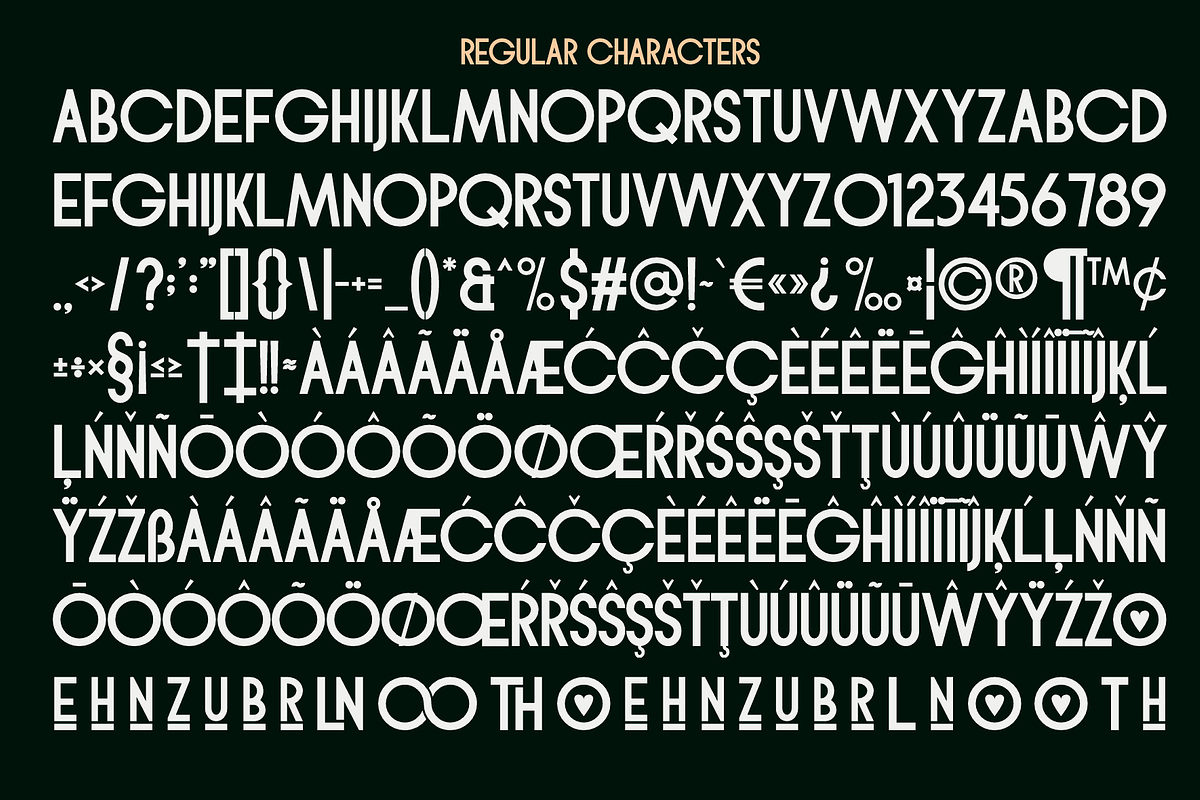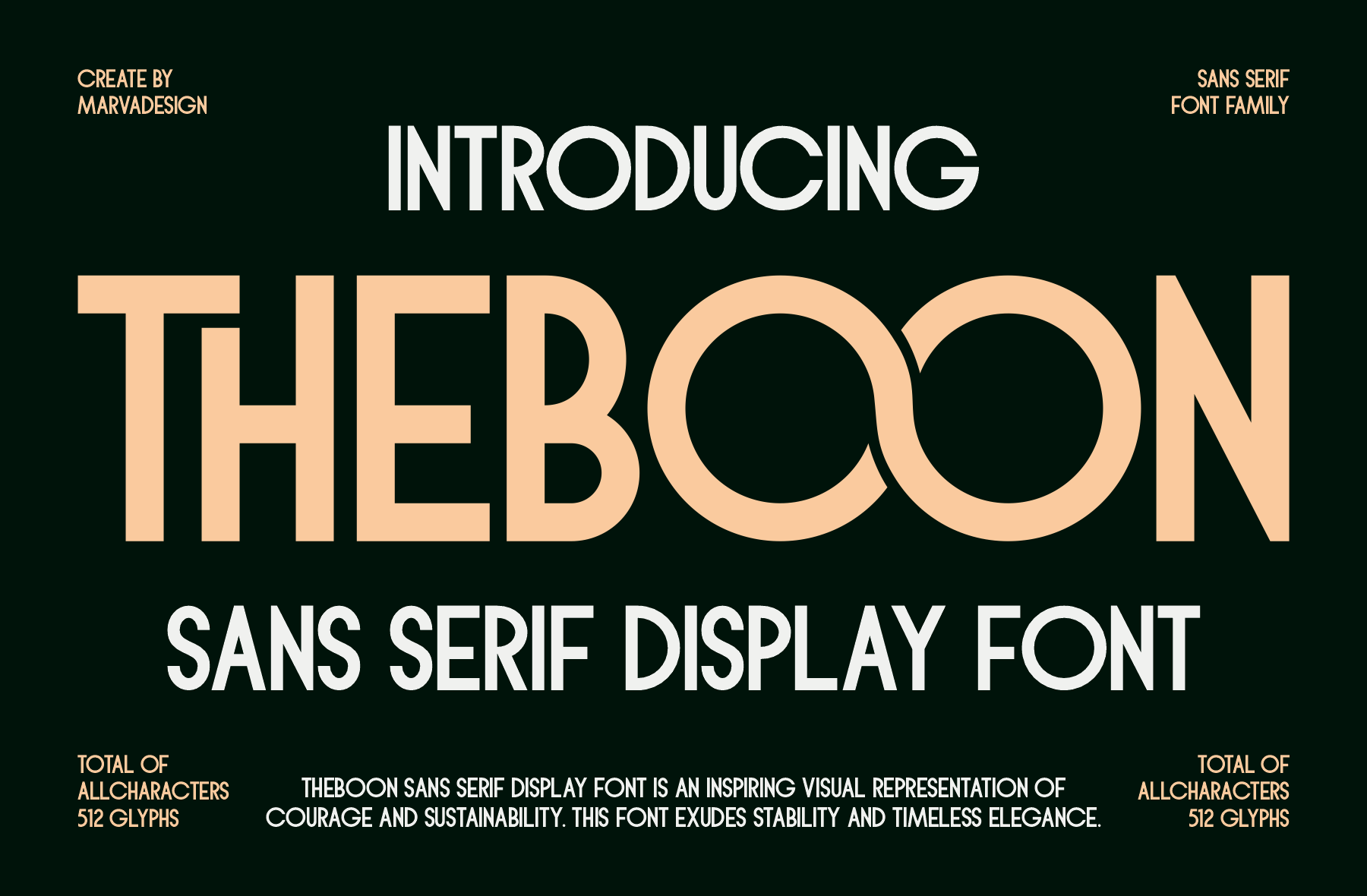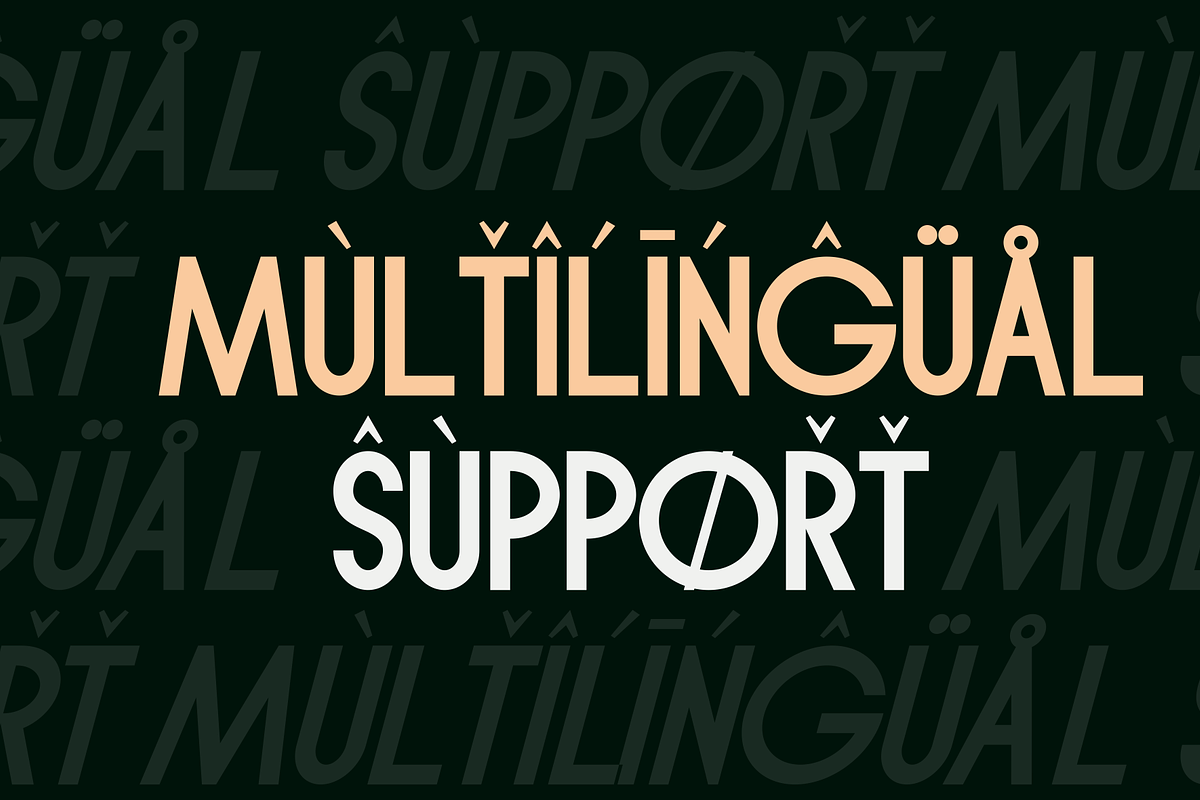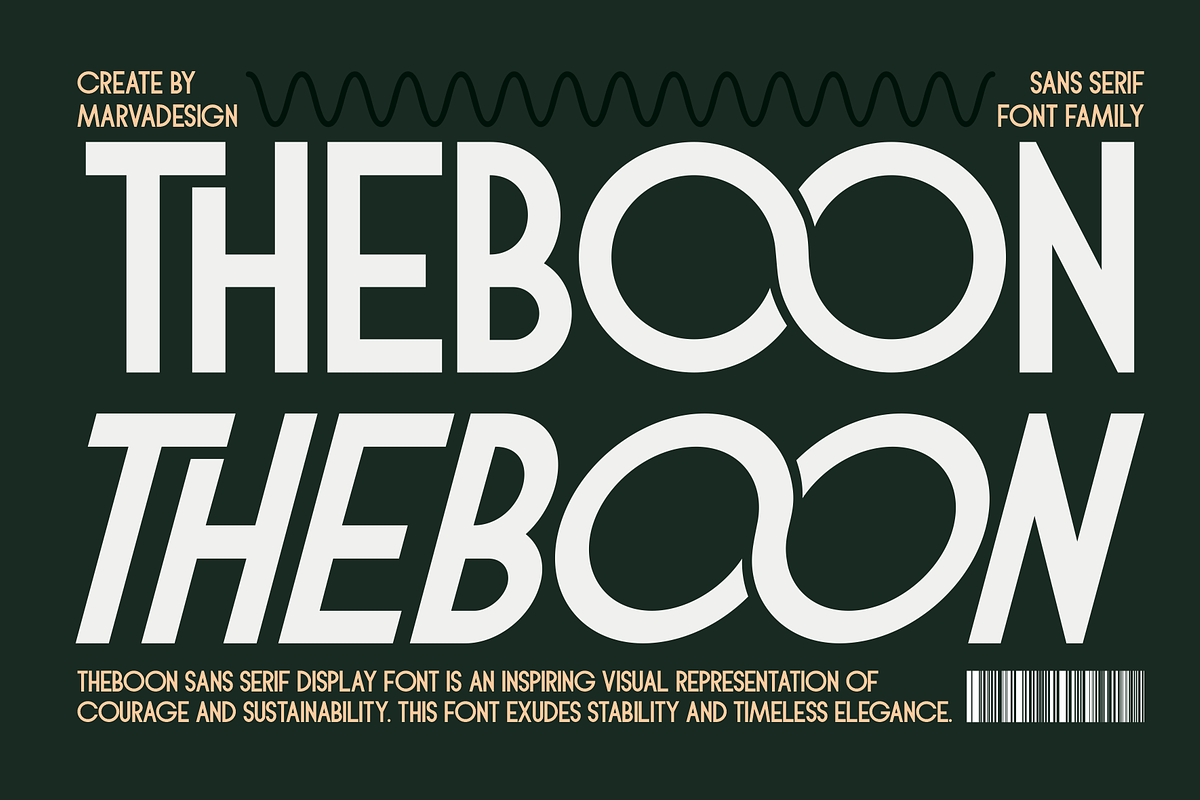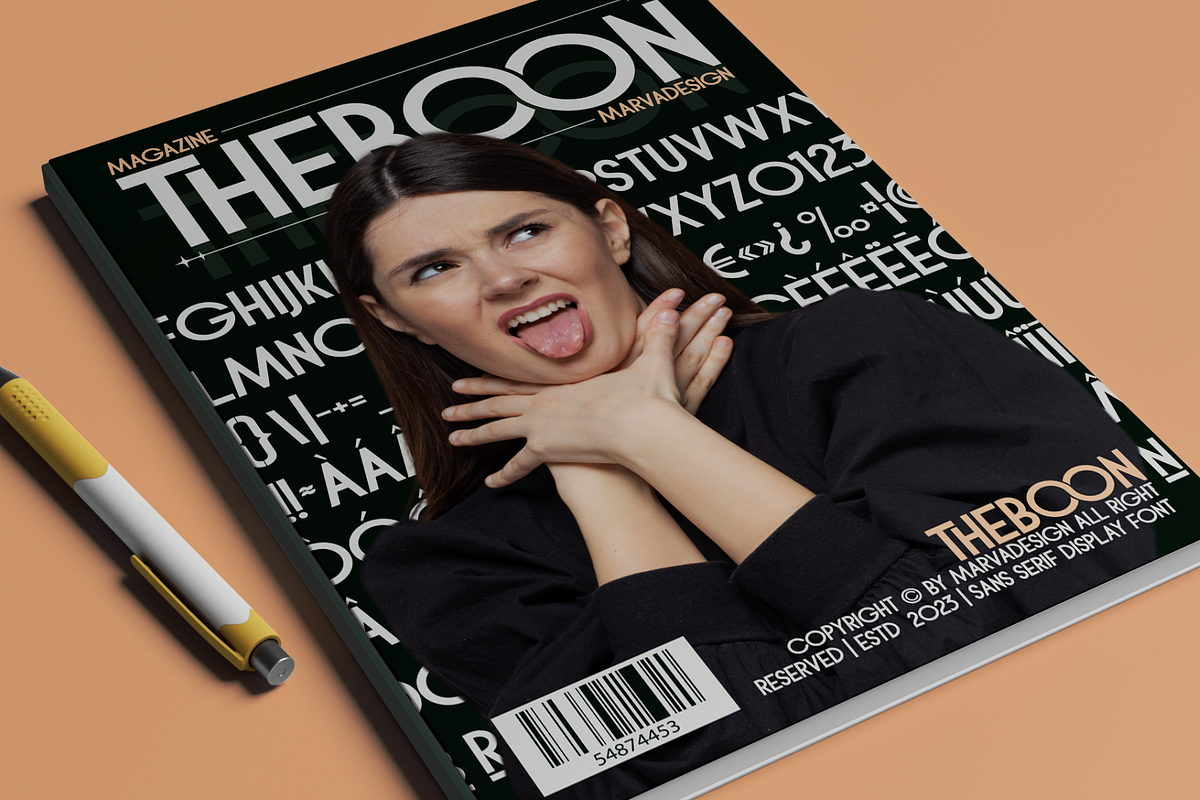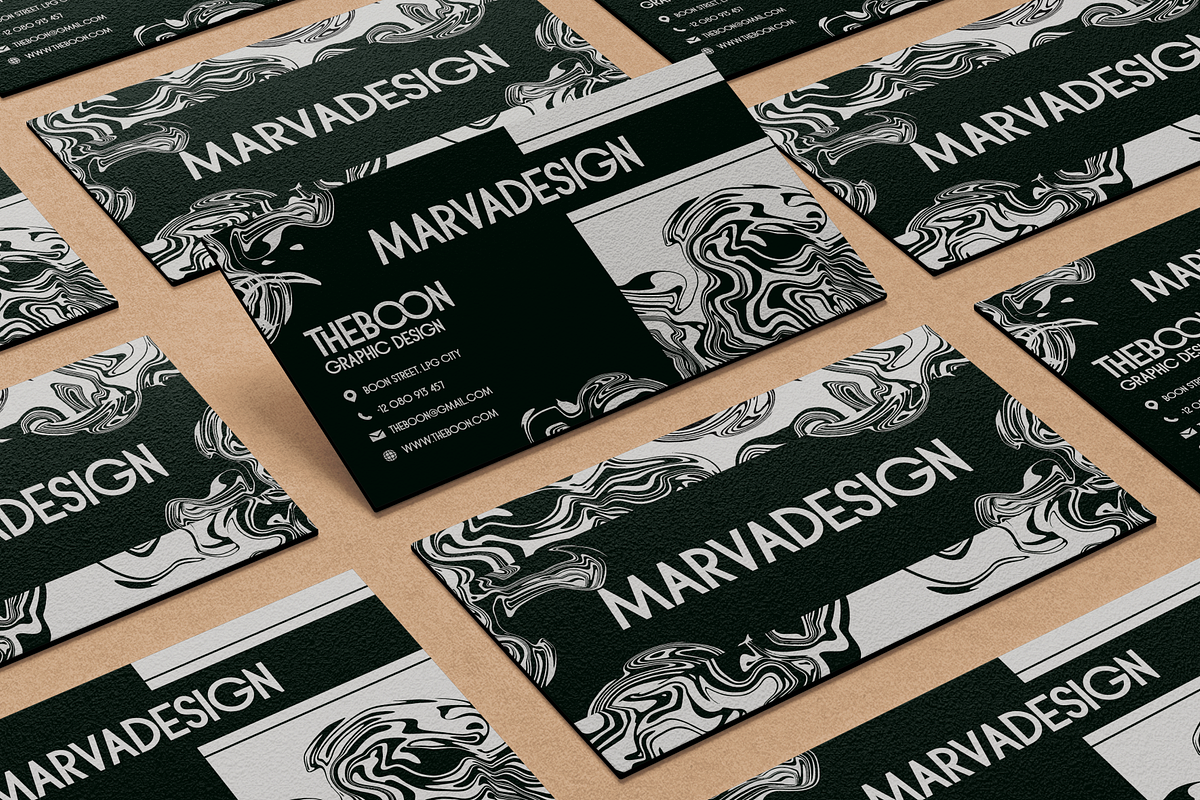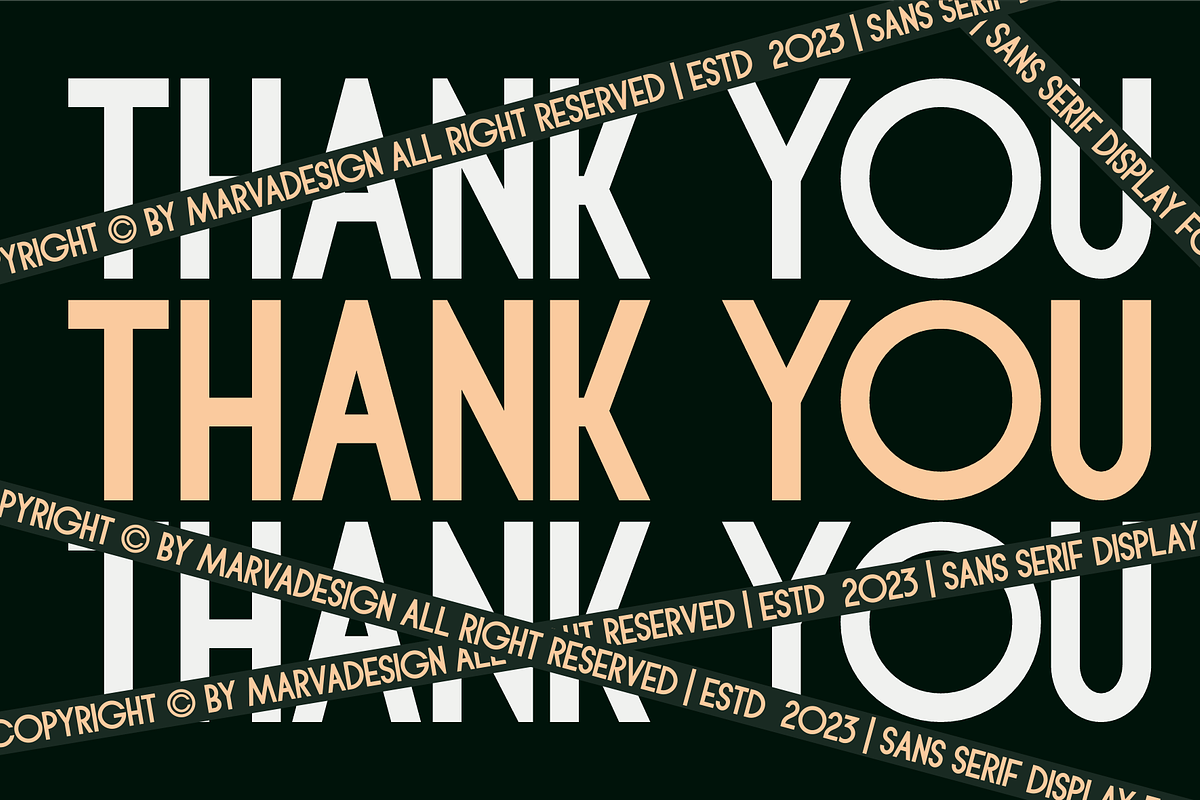
Theboon - Sans Serif Display Font
Introducing our new product Theboon - Sans Serif Display Font Sugary Dreams - Sans Serif Display Font authentic display font. The font is suitable for any branding project like logo, Template Design, Product and many more. outstanding in a wide range of contexts.
- Multilingual *Italic